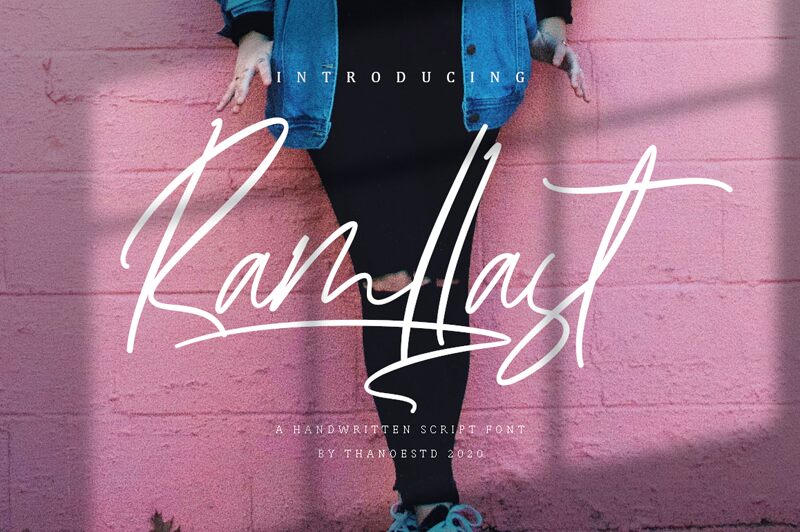
Ramllast
Introducing Ramllast, the signature thin and narrow font designed by Thanoestd. This unique font is perfect for creating eye-catching logos, displays, posters, and other art projects. It's also great for crafting invitations, greeting cards and adding an elegant touch to websites.